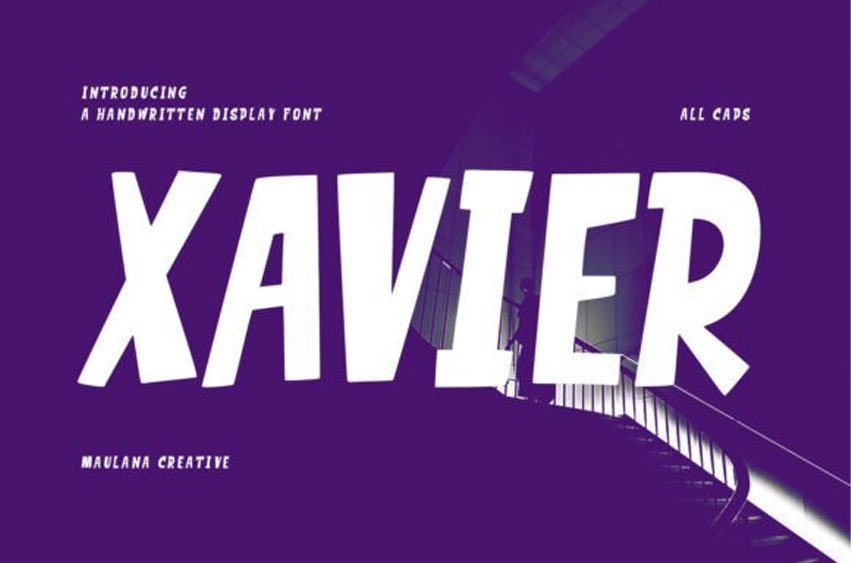
Xavier Font is an all-caps display font with a fun and relaxed appearance.
Use this unique typeface to add that special touch to any design idea you can think of!